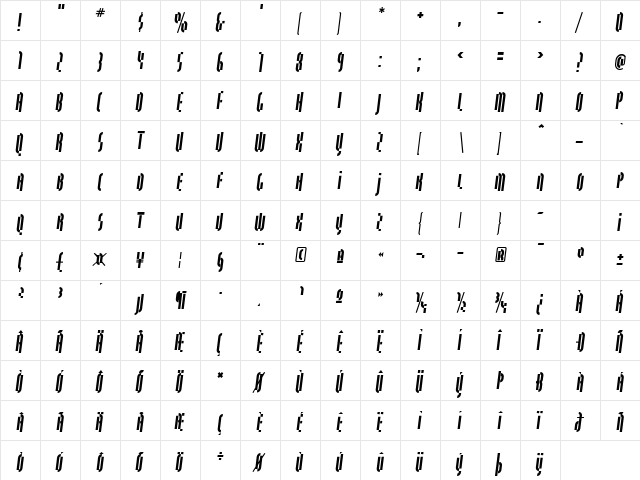
QuasariaLL BoldOblique Font Preview
QuasariaLL BoldOblique
Design Context for QuasariaLL Typeface
QuasariaLL offers clean, dependable letterforms without strong stylistic allegiance, making it a practical choice for designers who need flexibility. The slanted form adds forward momentum and visual energy. Its bold stroke weight gives it real presence on the page.
Pro Tip: Use QuasariaLL for emphasis, pull quotes, and subheadings where its slanted energy can add rhythm to the layout.